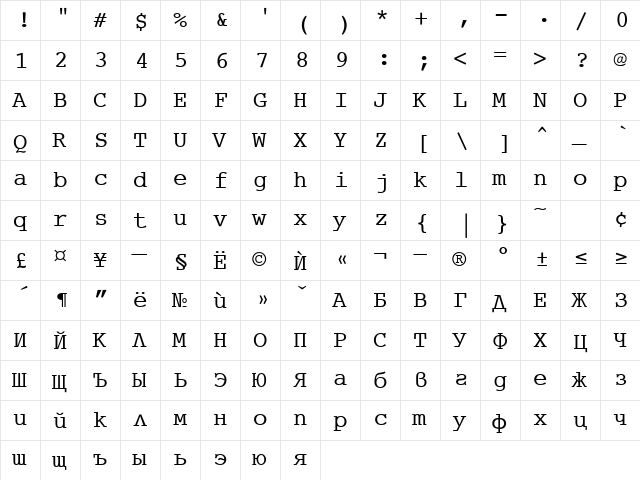
CourierET Regular
Design Context for CourierET Typeface
CourierET uses fixed-width spacing throughout, giving it the structured, systematic character associated with coding environments and technical documentation.
Well-suited to data-driven dashboards, coding tutorials, and any design that wants to reference the world of programming.
Pro Tip: Use CourierET with slightly increased line-height for extended reading — fixed-width spacing can feel dense in longer passages without extra breathing room.